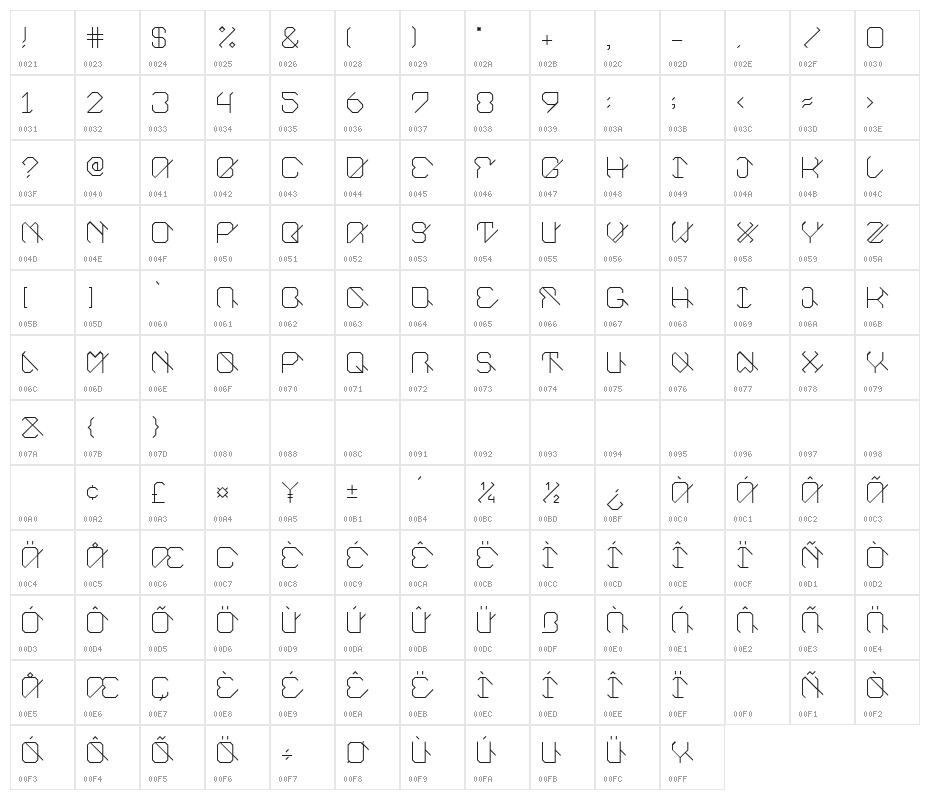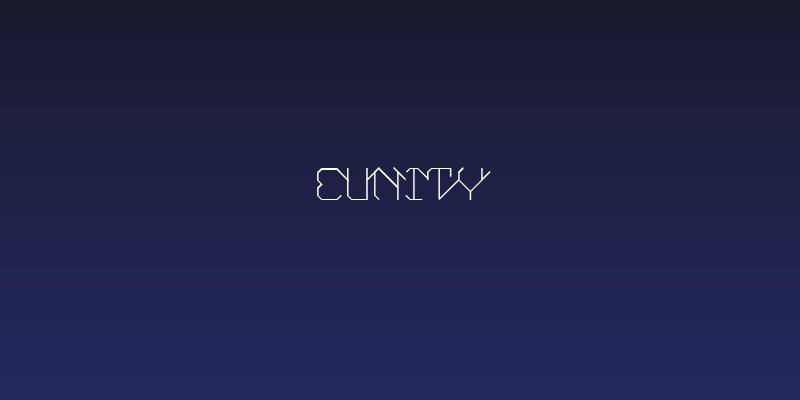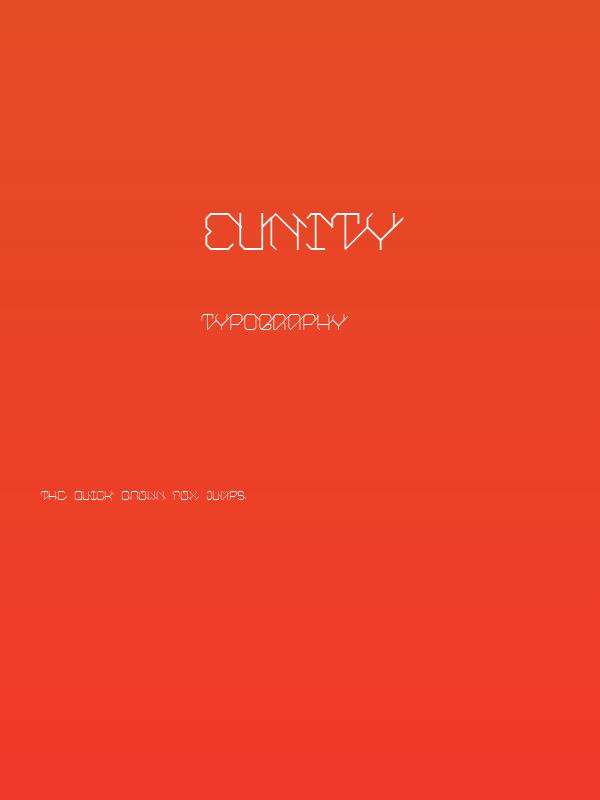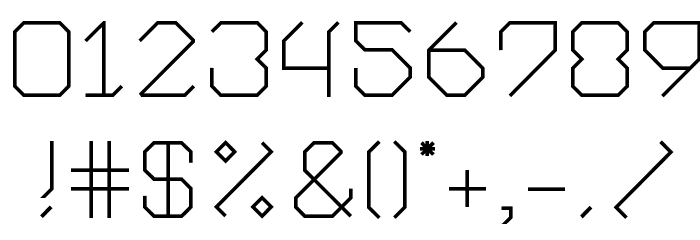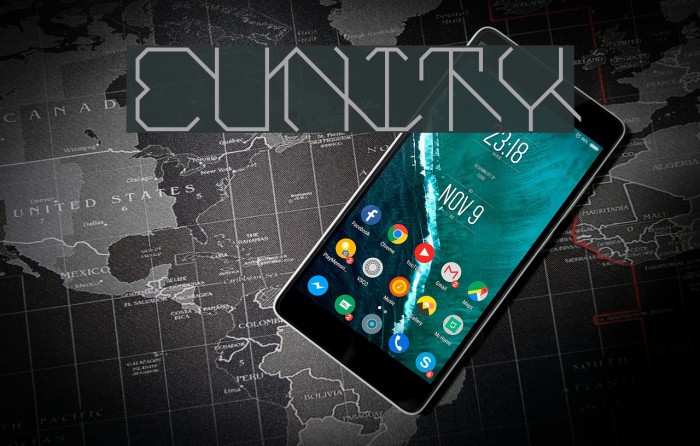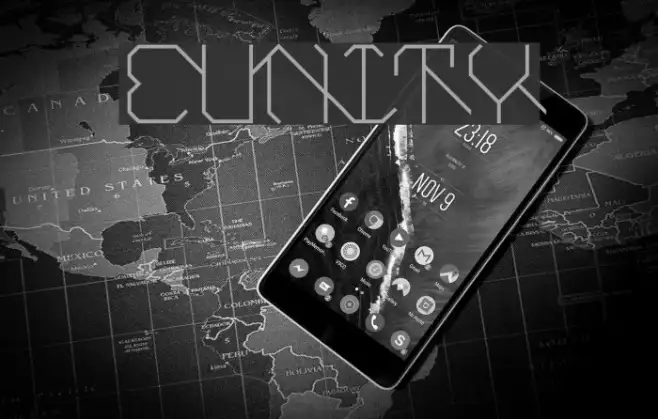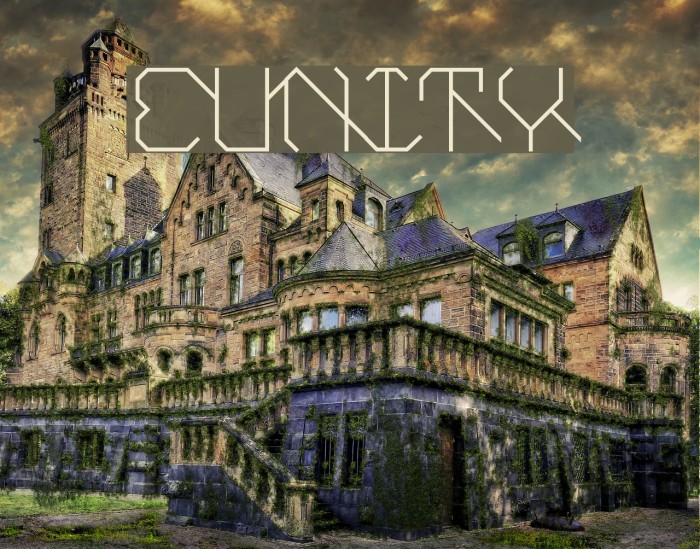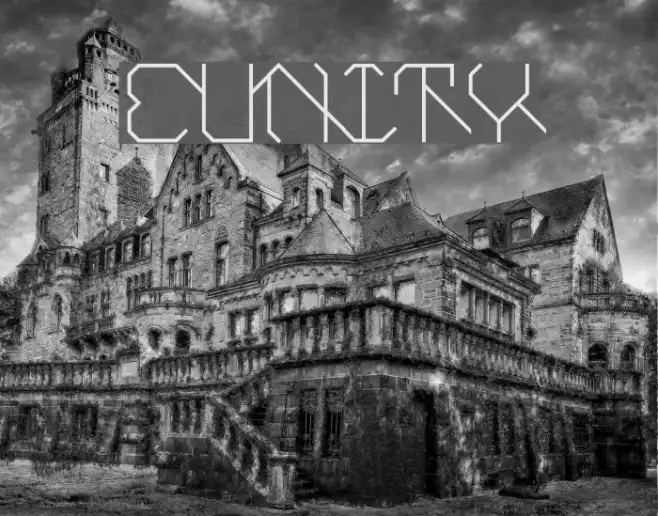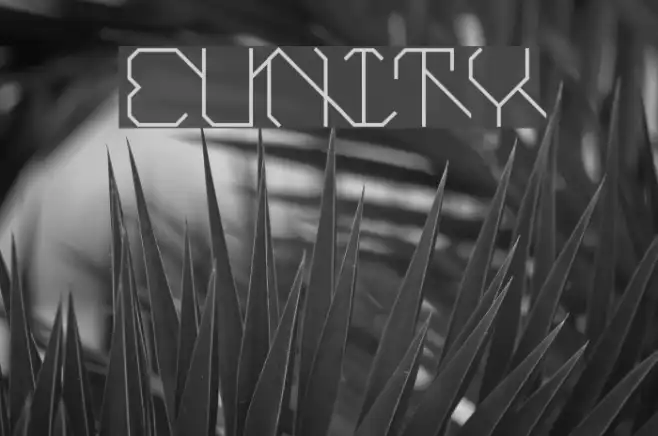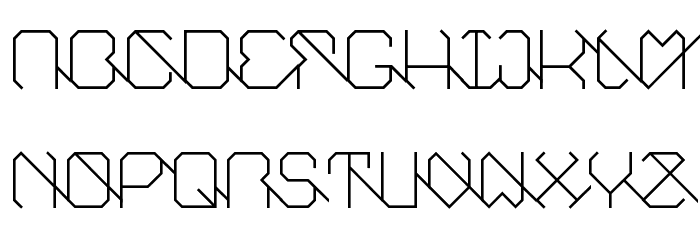
EUnity Font
EUnity Description
This font features a geometric and angular design, characterized by its sharp edges and interconnected lines. Each character is constructed with a series of straight lines and angles, creating a futuristic and technical appearance. The uppercase and lowercase letters maintain a consistent style, with a unique approach to traditional letterforms. Numbers and special characters follow the same design principles, ensuring uniformity across the typeface. The font's distinct style makes it stand out, offering a modern and edgy aesthetic suitable for various creative applications.